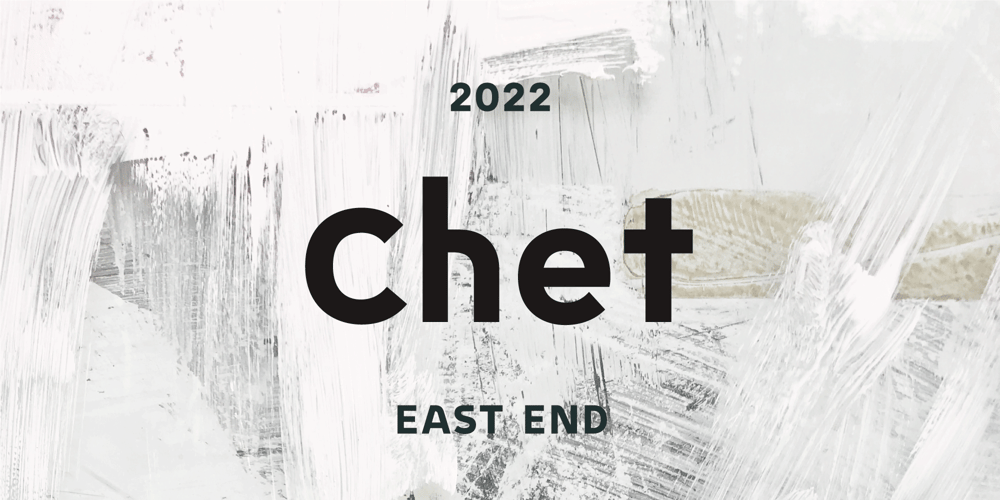
Chet
Chet font
Chet Font Family was designed by Shinpei Ino and published by East end. Chet contains 1 styles and family package options. Chet was inspired by the lettering on the signs of American diners and gas stations in the 1950s and 60s. It is not a mere reprint of nostalgic signage letters, however. This typeface retains the boldness, uniqueness, and strength of this era, while adding a modern touch that makes it feel comfortable to use today. It is highly readable even from a distance, making it perfect for signs, posters, and website headers. Chet can also be used as a base for creating logotypes because of the unique forms of the a, n, and r. The typeface is named after Chet Baker, the jazz trumpeter who was active between the 1950s and 1970s.